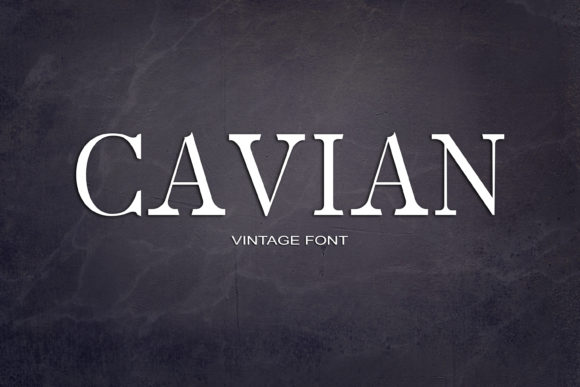
Introducing the Cavian Font, a vintage masterpiece that oozes retro charm. This serif font draws inspiration from the iconic typography of the 1980s, capturing the essence of a bygone era. Its bold style commands attention, making it the perfect choice for creating captivating designs that transport you back in time.
With Cavian Font, you'll have the power to evoke nostalgia and create a sensory experience that resonates with your audience. Whether you're designing logos, posters, flyers, or branding materials, this font will infuse your work with a touch of retro magic.
Say goodbye to bland and uninspired designs. Embrace the Cavian Font and let your creativity run wild. Its unique character and bold personality will transform your projects, making them stand out from the crowd.
Key features of the Cavian Font:
* A vintage-inspired serif font that exudes retro charm
* Bold and distinctive style that makes your designs stand out
* Perfect for creating logos, posters, flyers, and branding materials
* Evokes nostalgia and creates a sensory experience that resonates with your audience
* Infuses your work with a touch of retro magic
Benefits of using the Cavian Font:
* Create captivating designs that transport you back in time
* Make your designs stand out from the crowd with its unique character and bold personality
* Evoke emotions and create a sensory experience that connects with your audience
* Add a touch of vintage elegance to your designs
* Unlock limitless creative possibilities